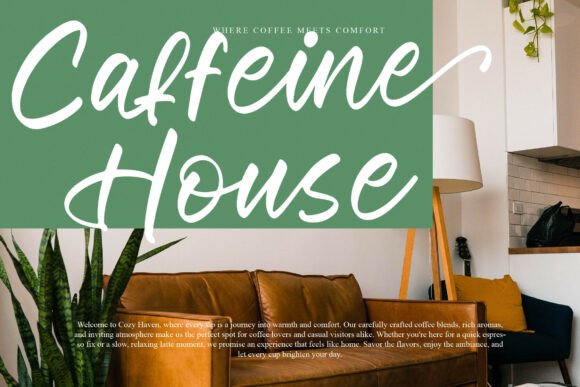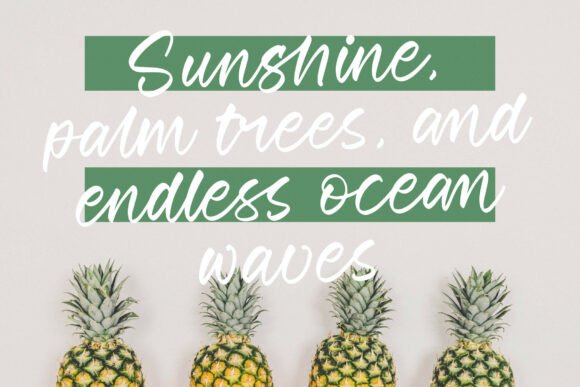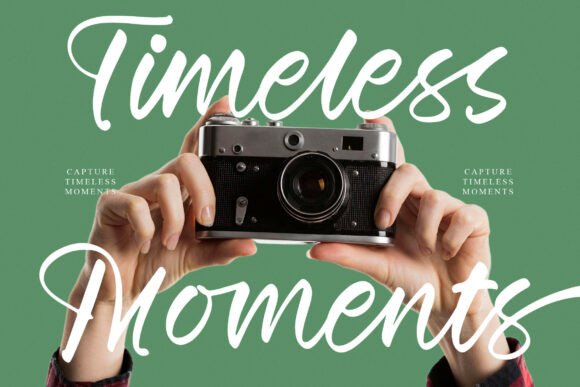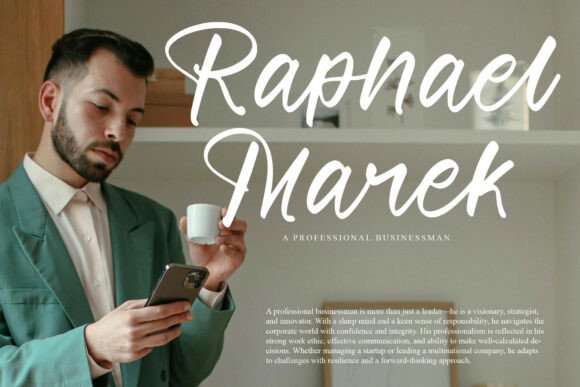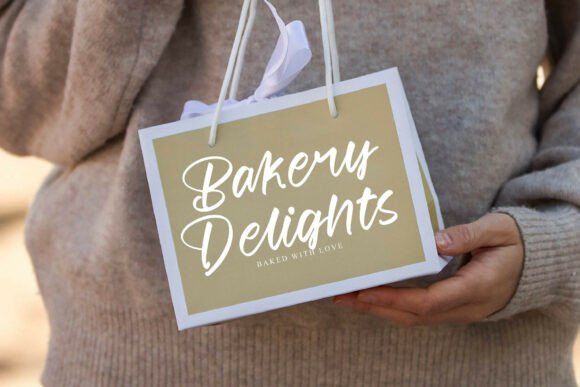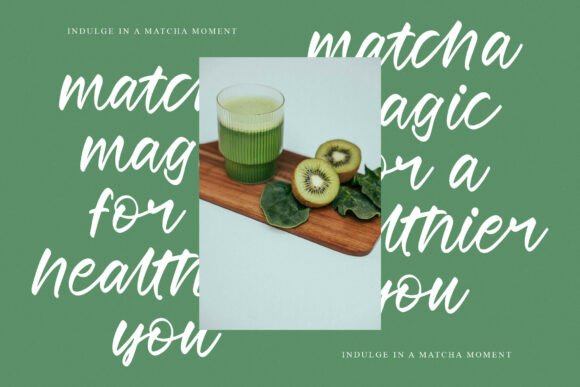
Introduction to Istanbul Pastels Font
Do you remember that moment when you stumble upon the perfect design element that elevates your entire project? It’s like finding a hidden gem in a treasure chest, and your creative world is suddenly brighter and more vibrant. For designers, this moment is what makes all the hard work worth it. And today, I’m excited to share with you a design resource that’s sure to bring a smile to your face and a dash of creativity to your next project: the Istanbul Pastels Font.
This gorgeous handwritten script font is a game-changer for designers who want to add a touch of whimsy and personality to their work. With its smooth curves and casual vibe, the Istanbul Pastels Font is perfect for branding, summer-themed quotes, lifestyle content, and social media visuals. Plus, with over 400 glyphs to choose from, you’ll have endless creative flexibility to make your designs truly stand out.
Whether you’re looking for a free download or a high-quality design resource to elevate your next creative project, the Istanbul Pastels Font is an excellent choice. Its transparent background makes it easy to layer with other design elements, and its high-quality design ensures that it will look great on any device or platform. So, what are you waiting for? Get ready to add some color and personality to your designs with the Istanbul Pastels Font!
Key Features of Istanbul Pastels Font
- High-quality design resource featuring soft, pastel colors reminiscent of the city of Istanbul, perfect for creative projects.
- Unique characteristics include subtle texture and gradient effects, adding depth and visual interest to creative projects.
- Perfect for use in a variety of design applications, including branding, packaging, and digital design, due to its versatility and high-quality design.
Honest Review: Istanbul Pastels Font
I recently stumbled upon the Istanbul Pastels Font, and I must say it’s a hidden gem for designers. This font is a design resource that offers a free download, making it an excellent addition to any creative project.
What works well with this font is its high quality and visually appealing design. The pastel colors used in the font give it a soft, delicate touch, making it perfect for designs that require a touch of whimsy. The font also has a transparent background, which makes it easy to use in any design project.
- ✨ Soft, pastel colors that add a touch of whimsy to designs
One limitation of this font is that it’s only available in a limited number of weights, which may not be suitable for all design projects. Additionally, the font may not be as versatile as some other fonts on the market.
Overall, I’m impressed with the Istanbul Pastels Font, and I think it’s a great addition to any designer’s toolkit. While it may have some limitations, its high-quality design and free download make it a valuable resource for any creative project.
Istanbul Pastels Font
The Istanbul Pastels Font is a free download design resource perfect for adding a touch of whimsy to your creative project. With its high-quality, transparent background, this font is ideal for use in a variety of design applications.
The Istanbul Pastels Font is perfect for use in a variety of creative projects, including:
- Blog and social media graphics
- Children’s book illustrations